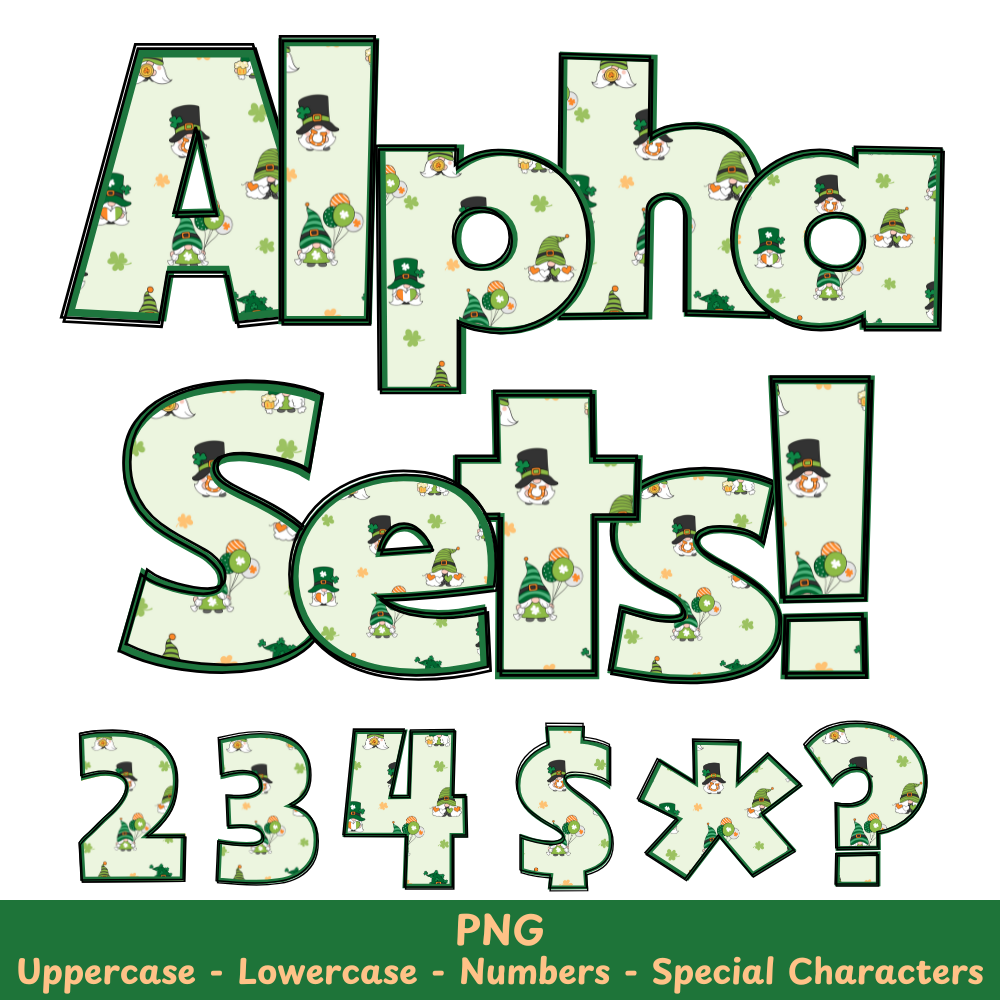
Green St. Patrick's Day Gnome PNG Font
Green St. Patrick's Day Gnome Alpha Set PNG Font Pack
Add a touch of whimsy and holiday spirit to your crafts with our Green St. Patrick's Day Gnome PNG Font! Perfect for sublimation and other projects, this font is sure to bring a smile to your face. Its vibrant green color and fun gnome design will add a festive touch to any project. Celebrate St. Patrick's Day in style with our unique font.